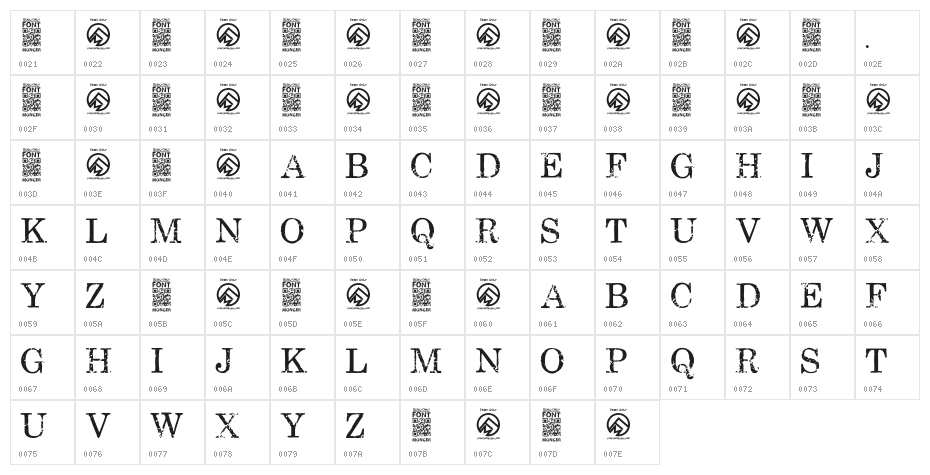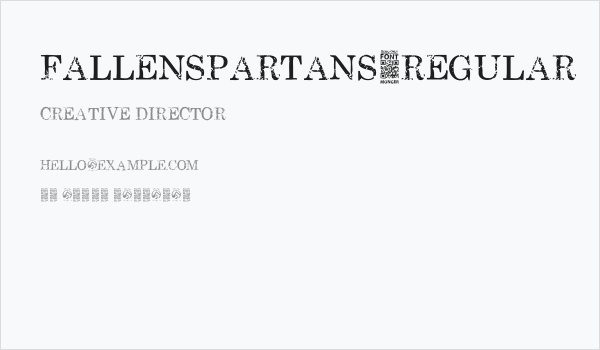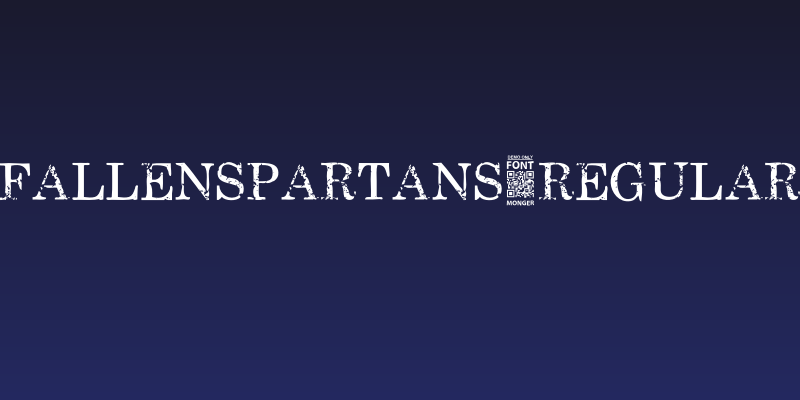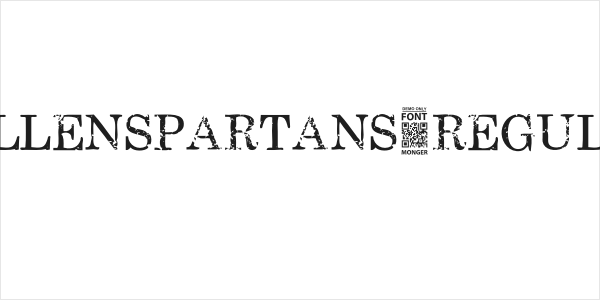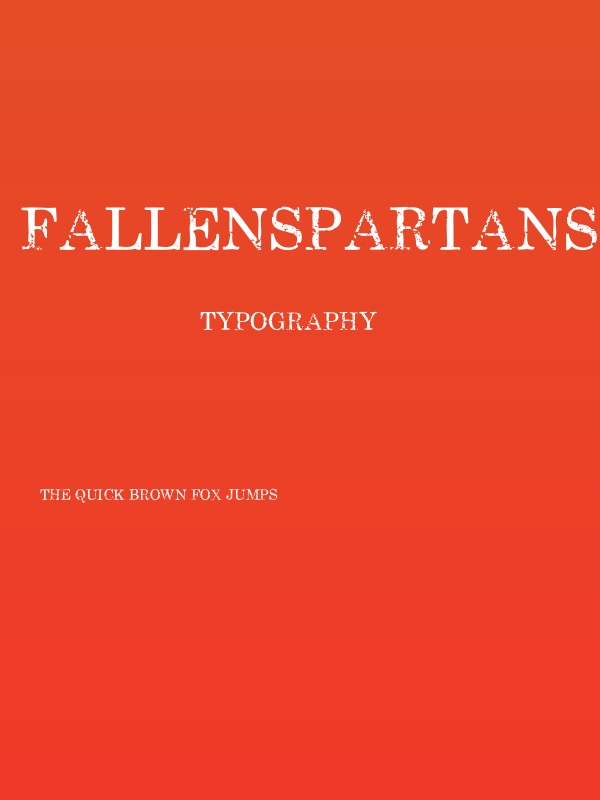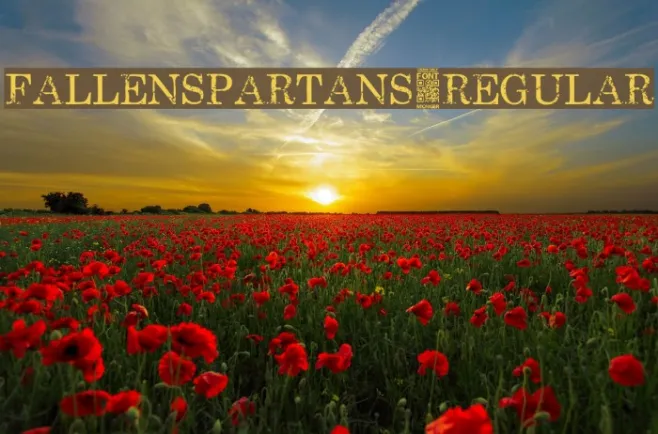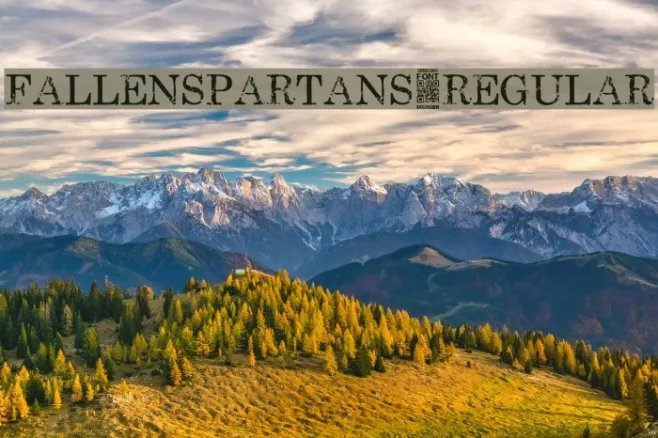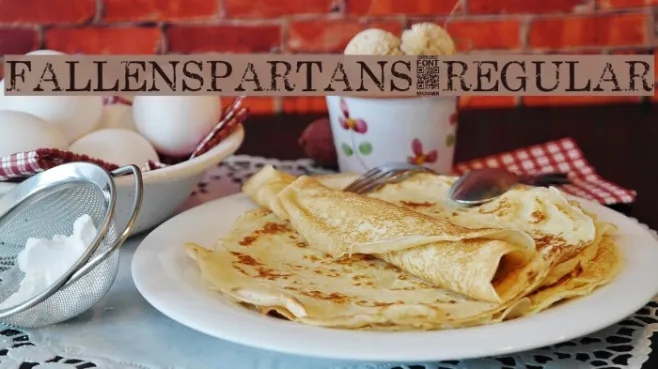
FallenSpartans-Regular Font
FallenSpartans-Regular Description
This font features a rugged, distressed style with a bold and impactful presence. The characters exhibit a weathered texture, giving them a vintage and worn appearance. The uppercase letters are prominently displayed, with a consistent height and width, while maintaining a slightly rough edge that adds to the overall aesthetic. The font's design is reminiscent of classic serif styles but with a modern twist, making it suitable for projects that require a strong, eye-catching typeface. The distressed effect is consistent across all characters, providing a cohesive look that can enhance the visual appeal of various design projects.
| Proposed Projects | Ideal for posters, branding, album covers, and any design requiring a bold, vintage look. |